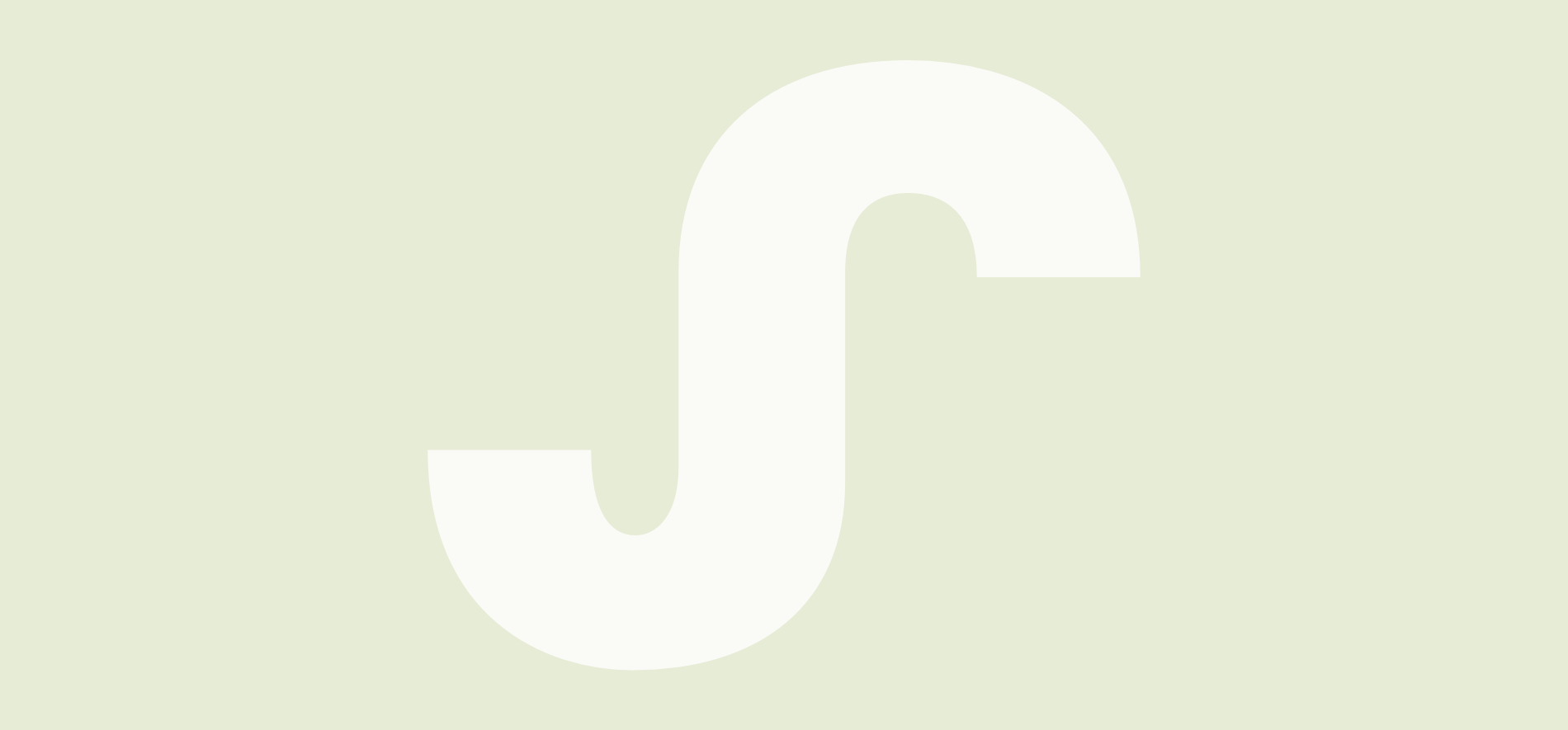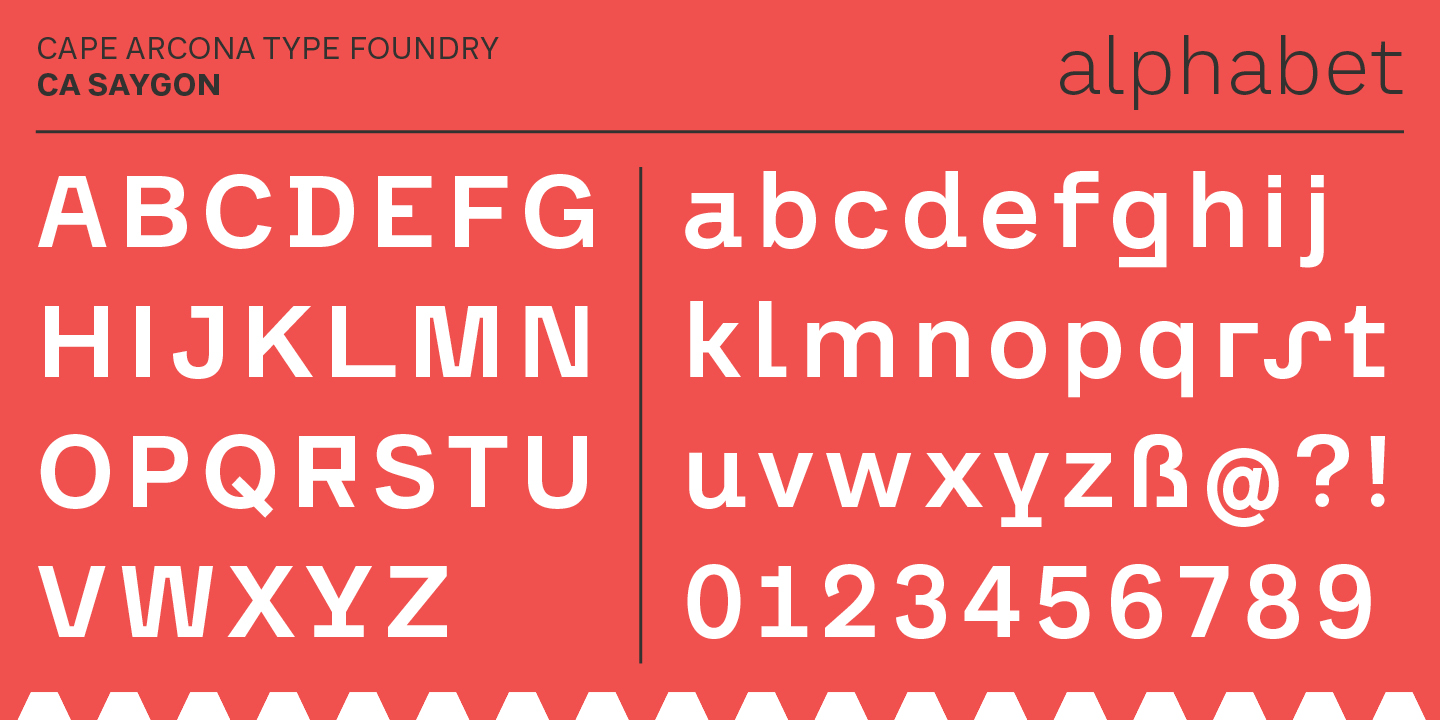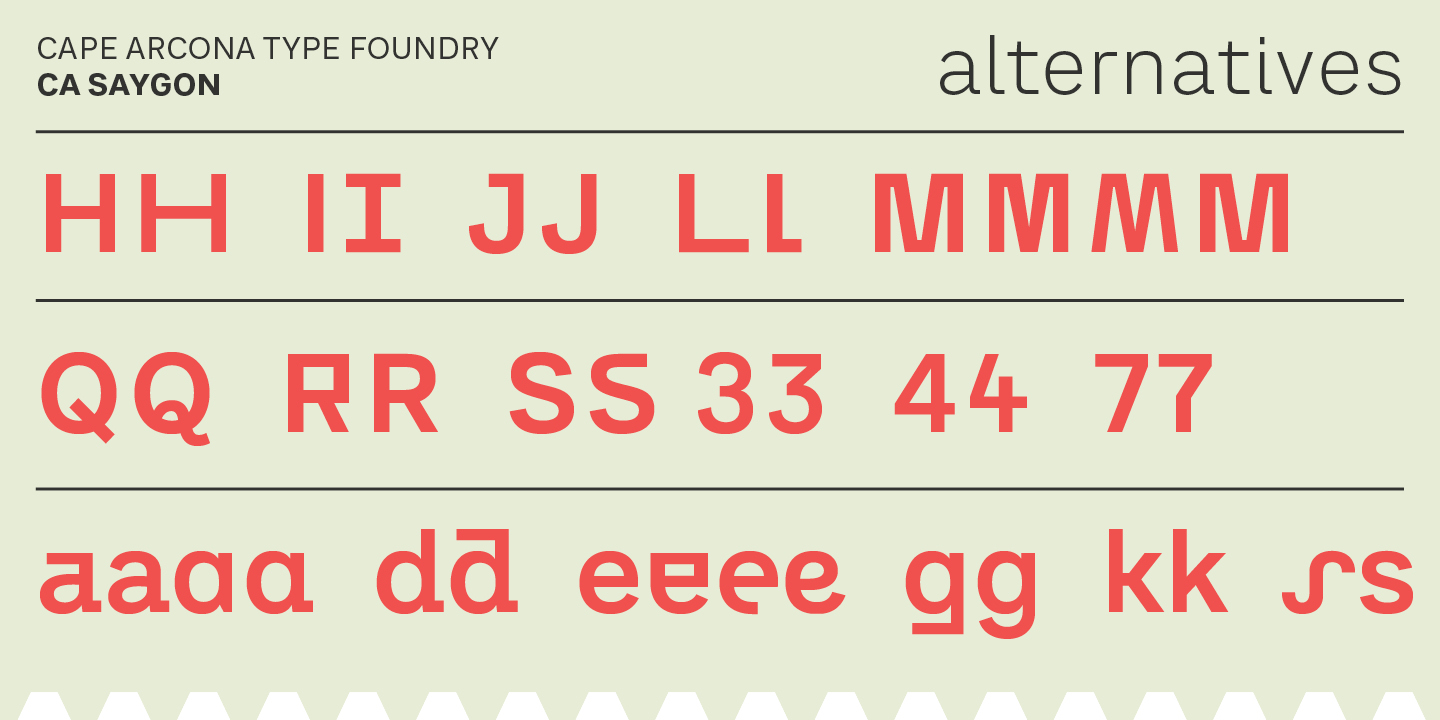
The origin of CA Saygon lies in a large corporate design project, that actually never came true. We wanted to create a typeface that would make the ruptures of a postmodern society visible. After hundreds of thrown away sketches, we decided on a handful of letters to form this new typeface. The combination of these letters makes the rebellion of individuality visible on the one hand, but also leads to a uniform typeface on the other.
A Latin Extended and a Cyrillic alphabet deliver a wide language support. And to make it even better, we added Vietnamese, due to the name of the font. OpenType features like fractions, inferiors and superiors, tabular and proportional figures make the professional typographer’s life easier. The spacing and kerning was carried out by Igino Marini, who, with a trained eye and his iKern program, has become the benchmark in typeface finishing.
CA Saygon also has a text variant, CA SaygonText.